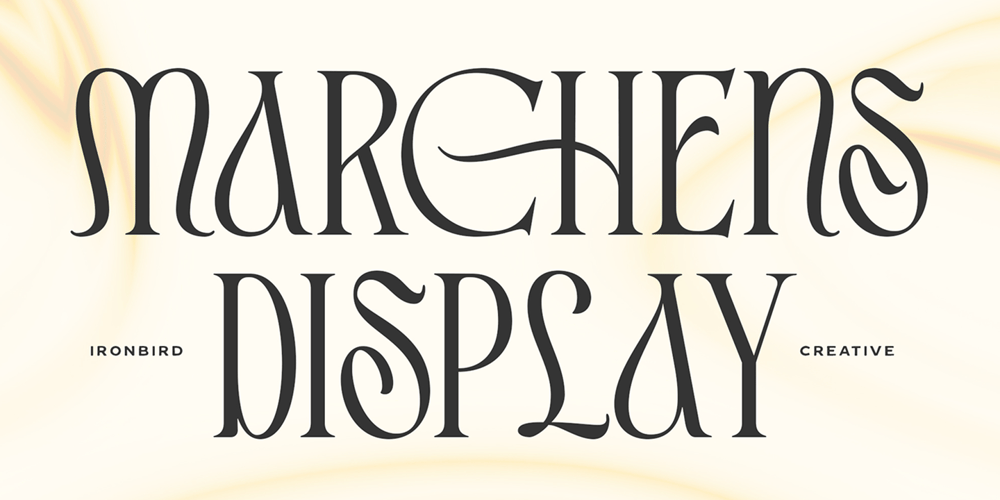
Marchens
Marchens font
Marchens Font Family was designed by Septianto Nugroho and published by Ironbird Creative. Marchens contains 1 styles and family package options. Introducing Marchens, a stylish and modern display serif, making it a versatile and elegant typeface. With a touch of vintage vibes, it will make your presentation looks amazing and sophisticated! You can use this typeface for logo, poster, event, or your social media post. Also support Multi Language and already PUA Encoded!Features: Uppercase & Lowercase Number & Symbol Multi language Ligatures Alternates PUA Encoded Thanks for purchasing and happy creating!Regards,Ironbird Creative